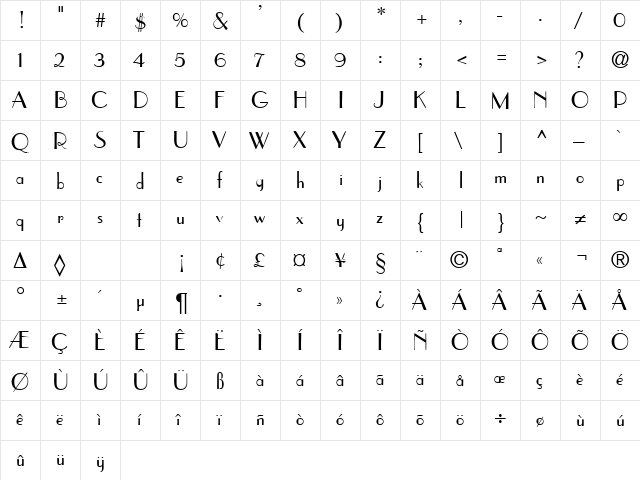
Parisian DB Regular
Design Context for Parisian DB Typeface
Parisian DB is a composed and adaptable typeface that performs quietly and consistently across a wide range of design contexts.